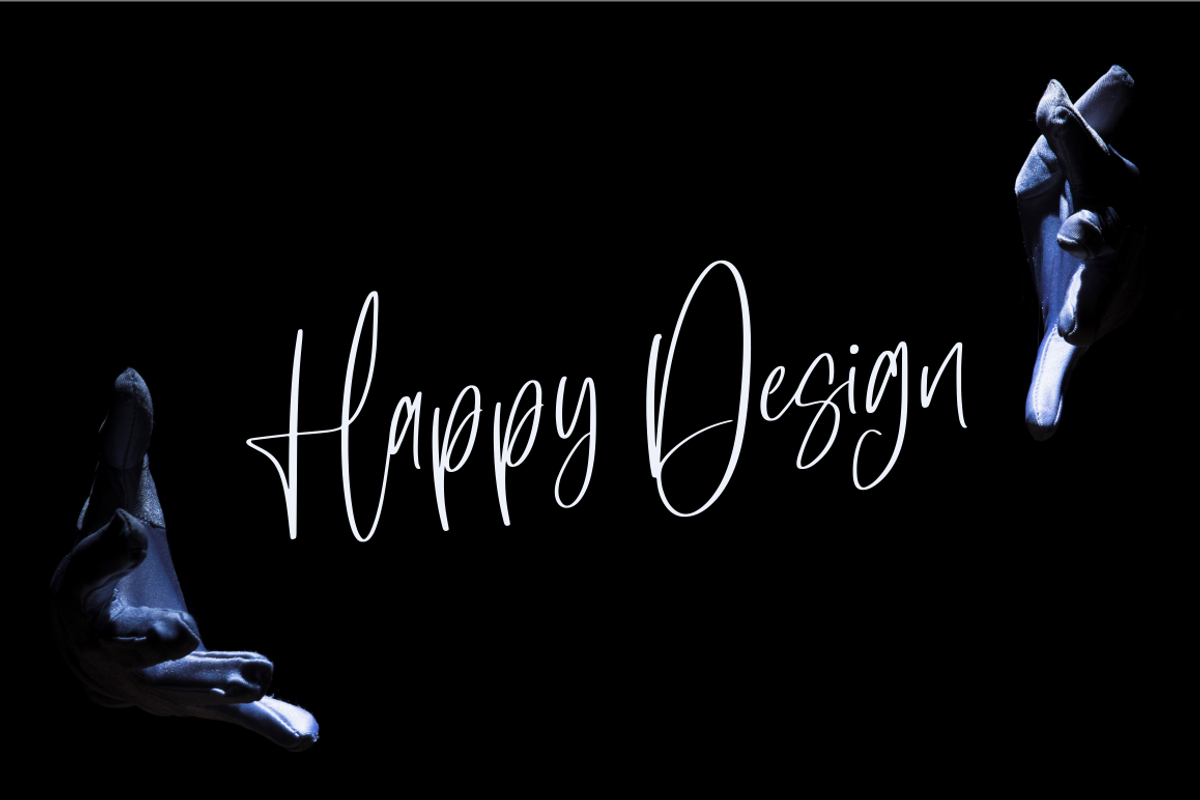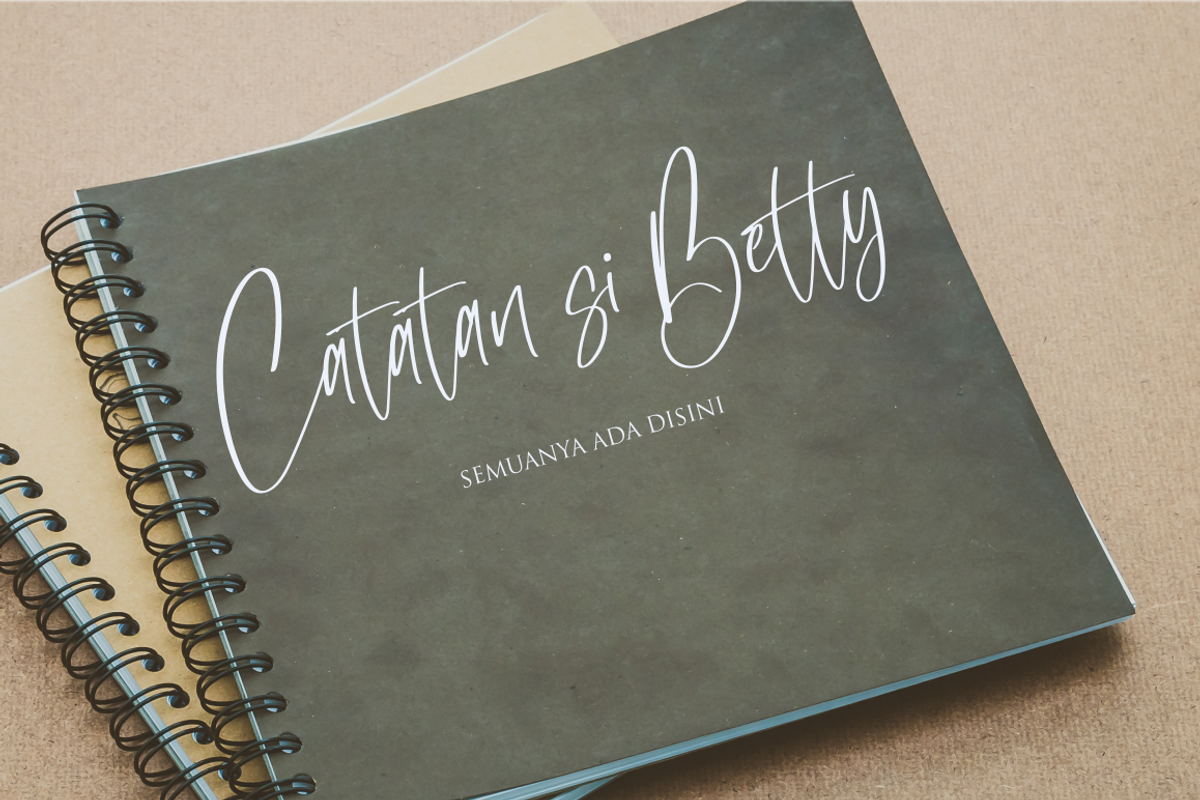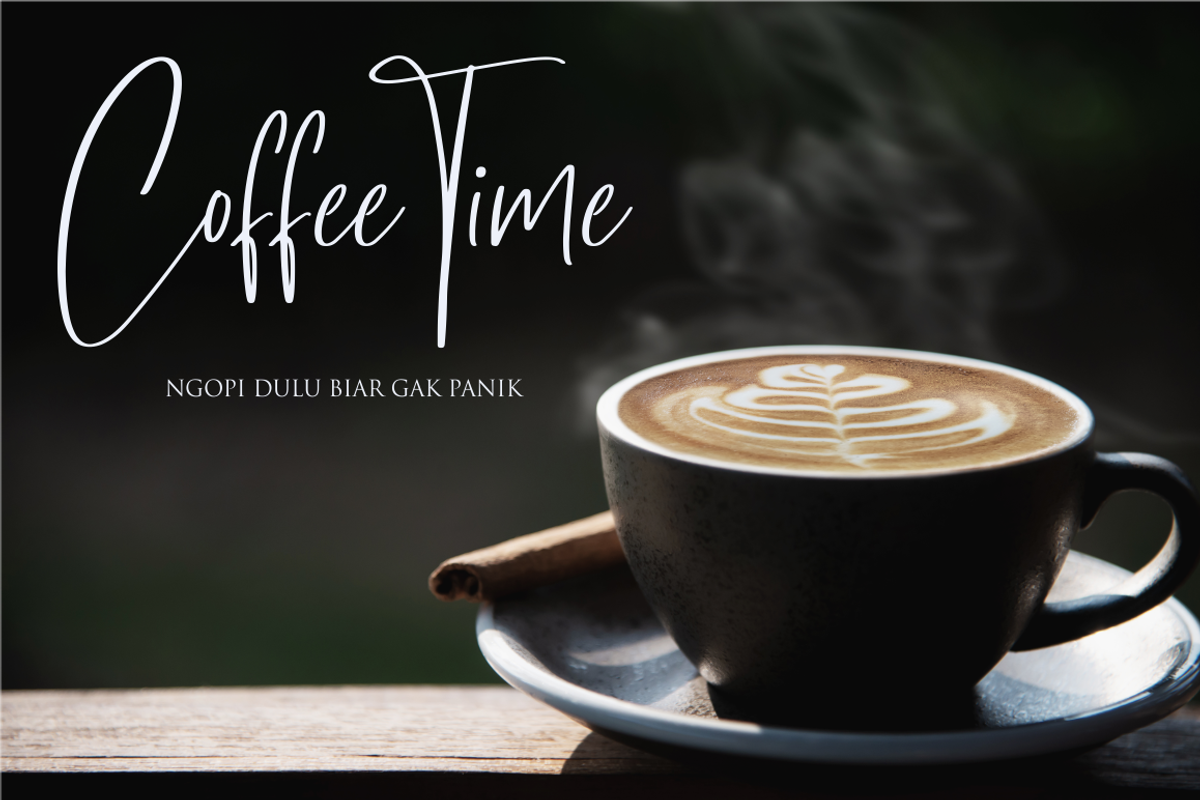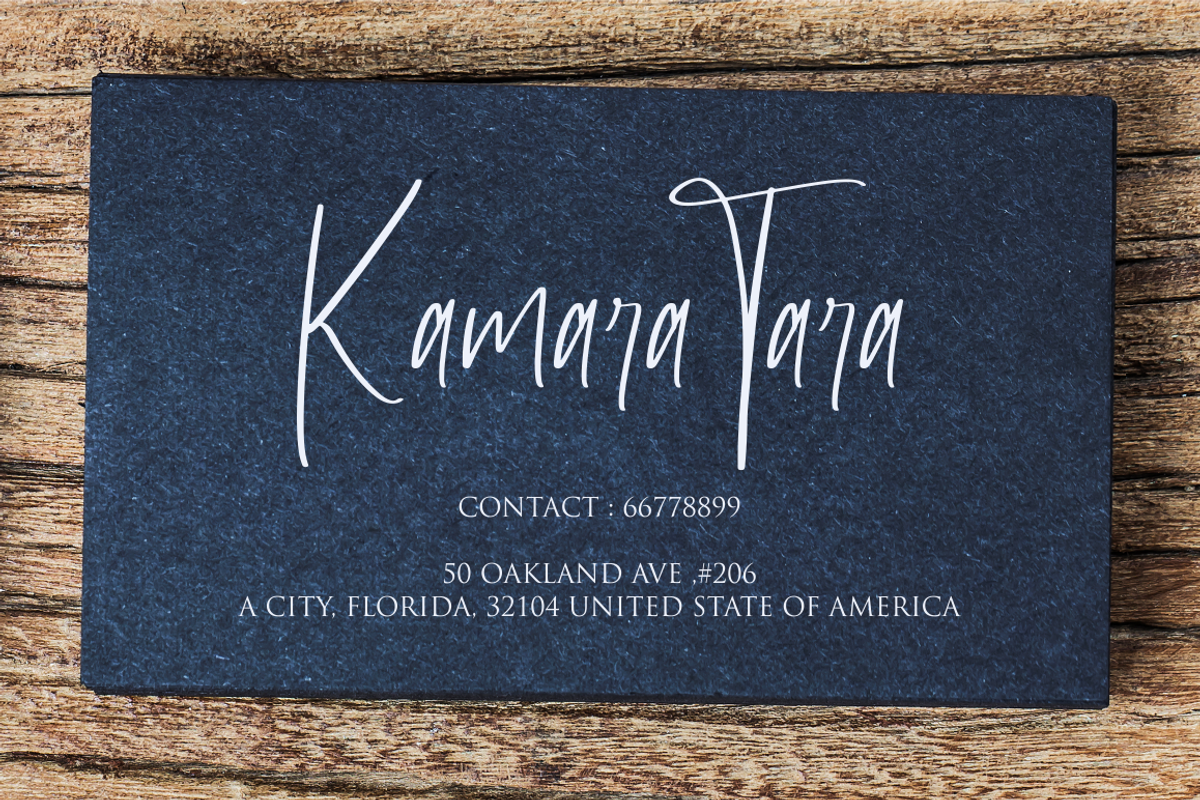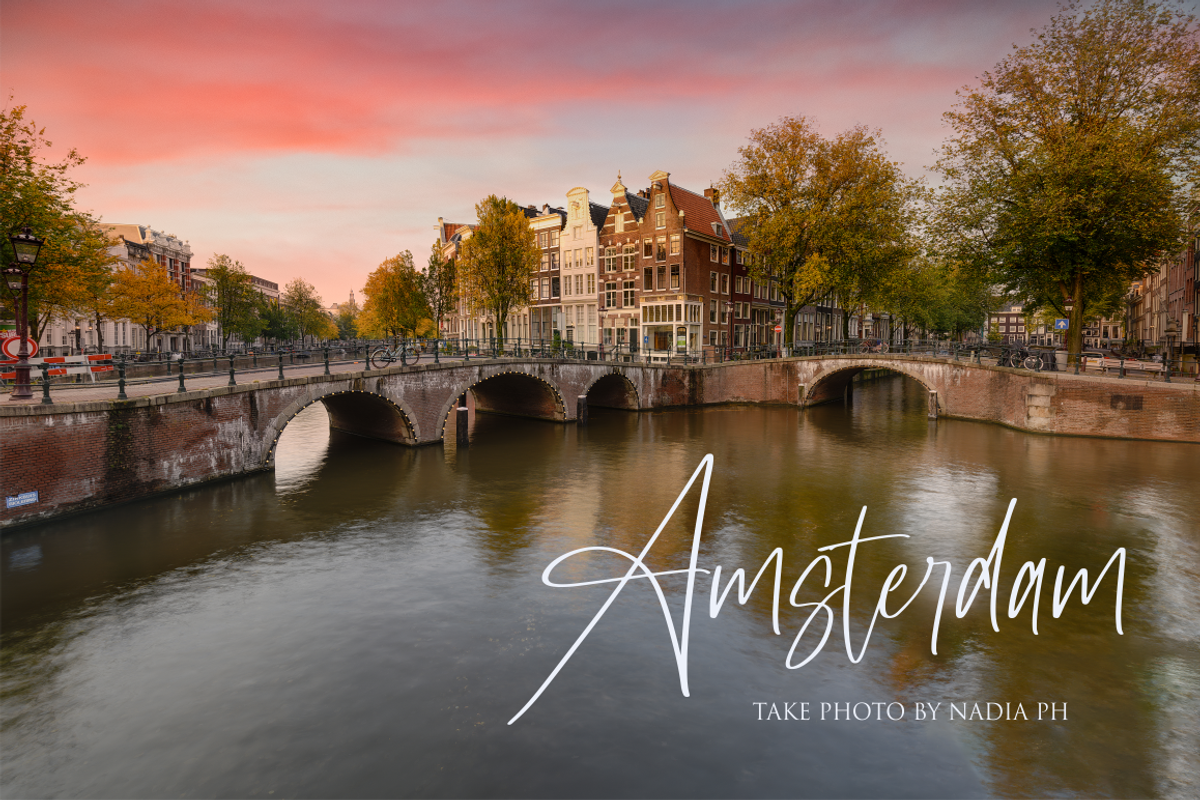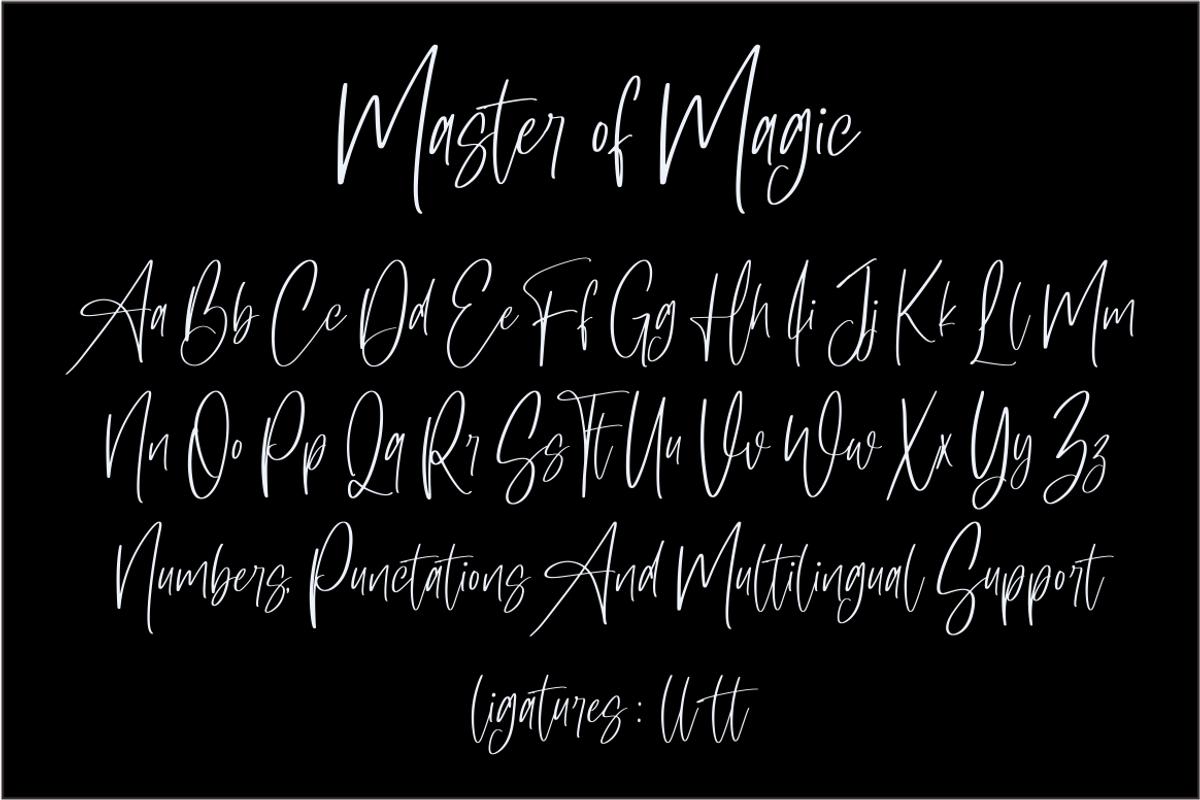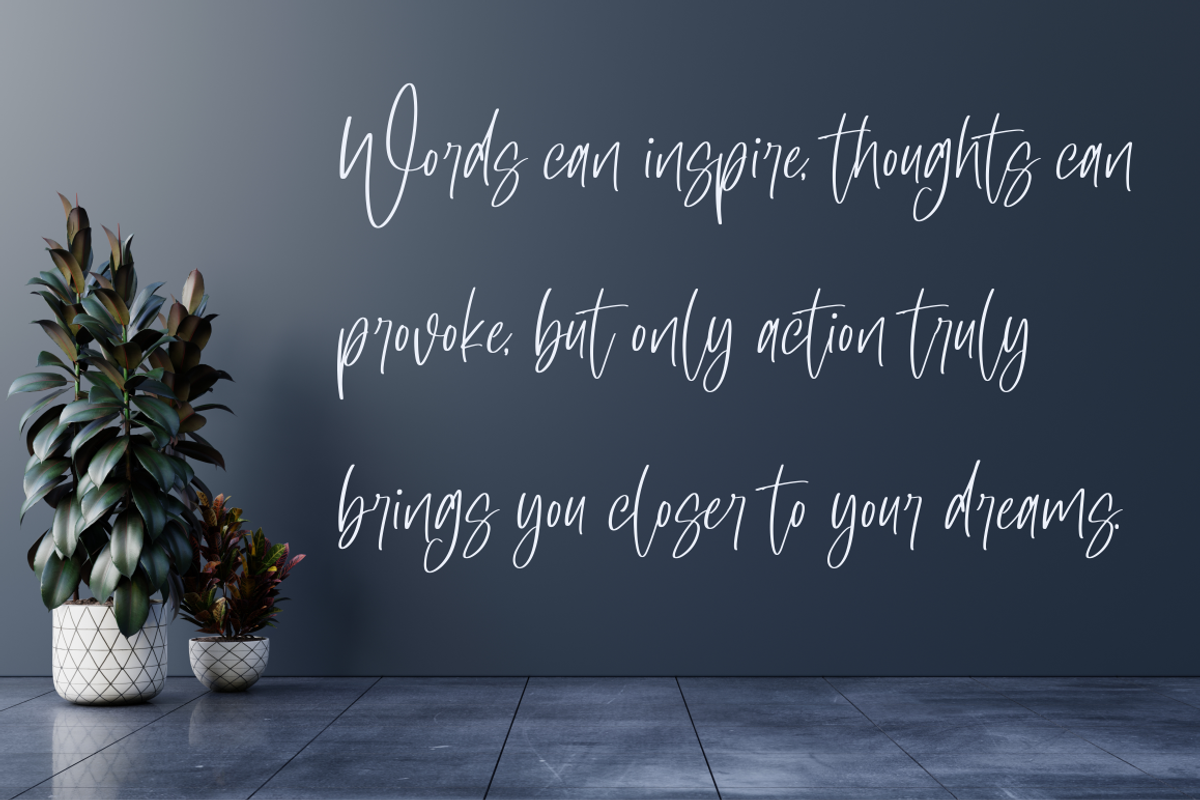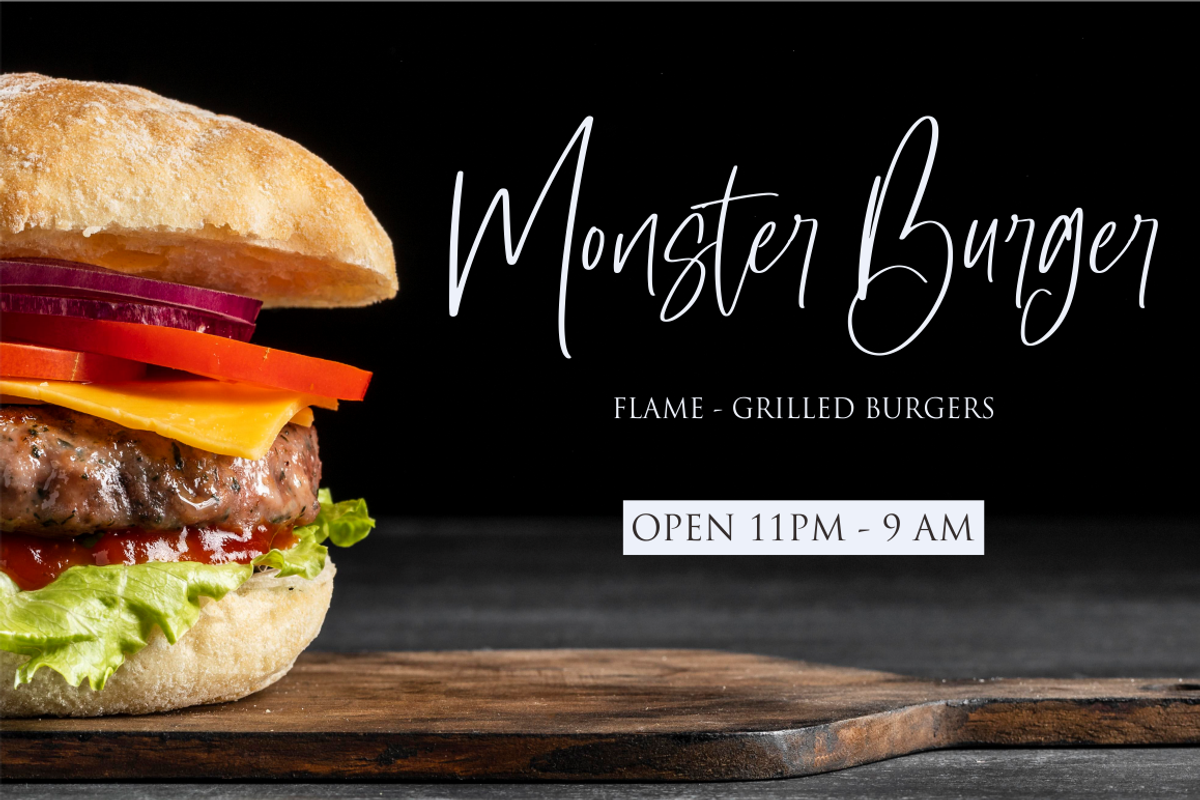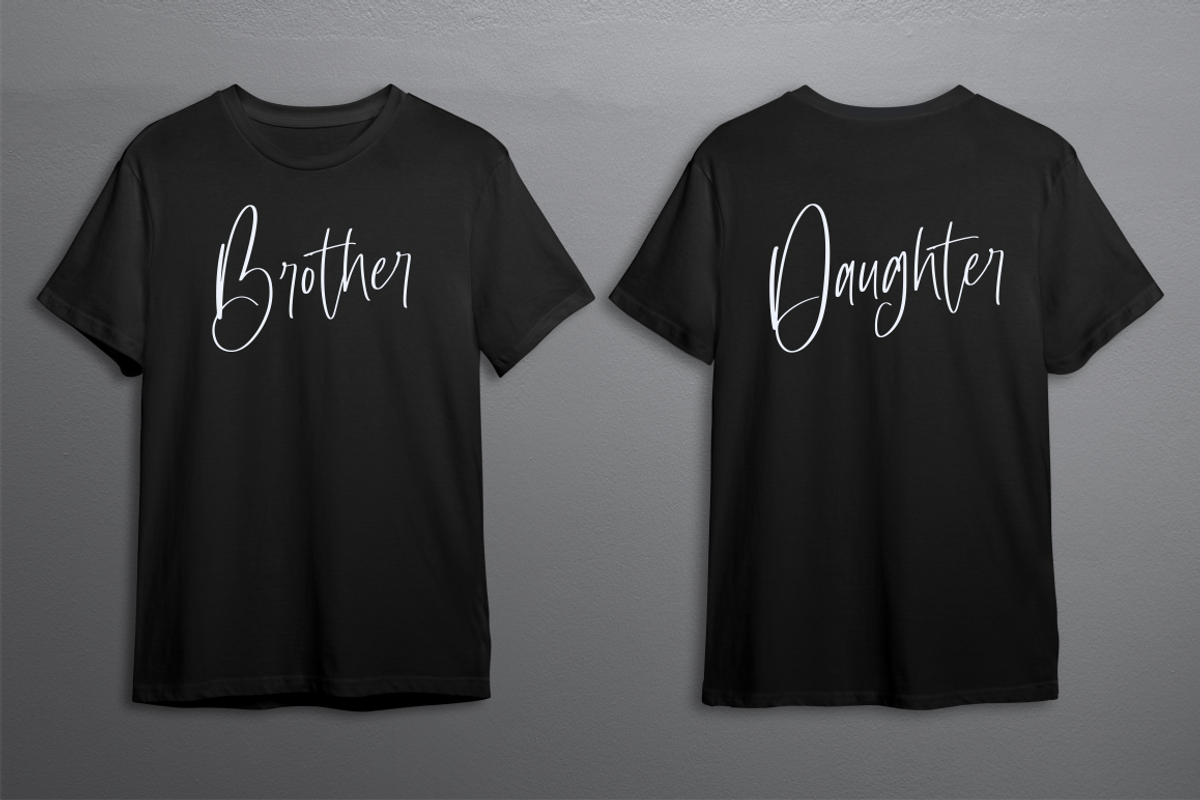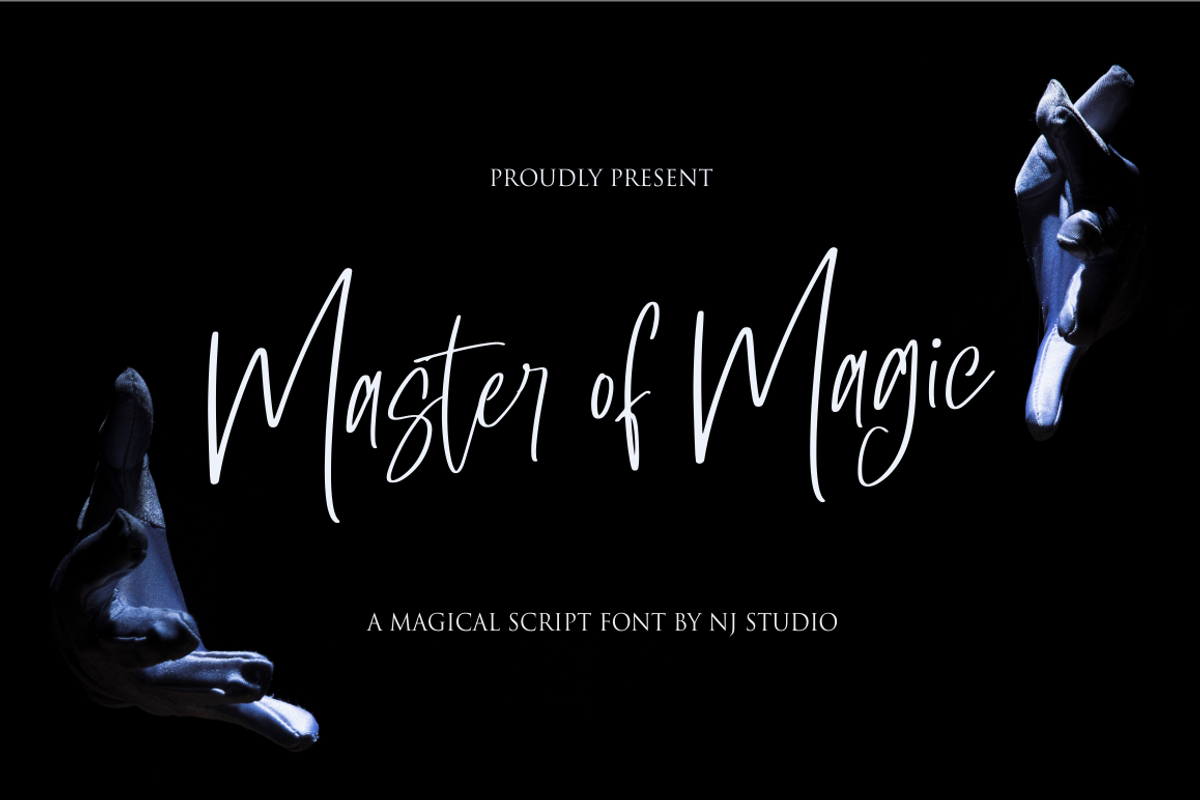
Master of Magic
Master of Magic a magical script font. It features ligatures characters that will take your projects to the next level!
This font is PUA code which means you can easily access all the glyphs that are full of magic! It also features many special features including glyphs. font designs that are made for various vector designs, printing such as digital wedding blogs, online shops, social media, while printing can be used in the field of product clothing, accessories, bags, pins, logos, business cards, watermarks and many others ...
so it can make your product look beautyful and attractive, and also Multilingual support!!!